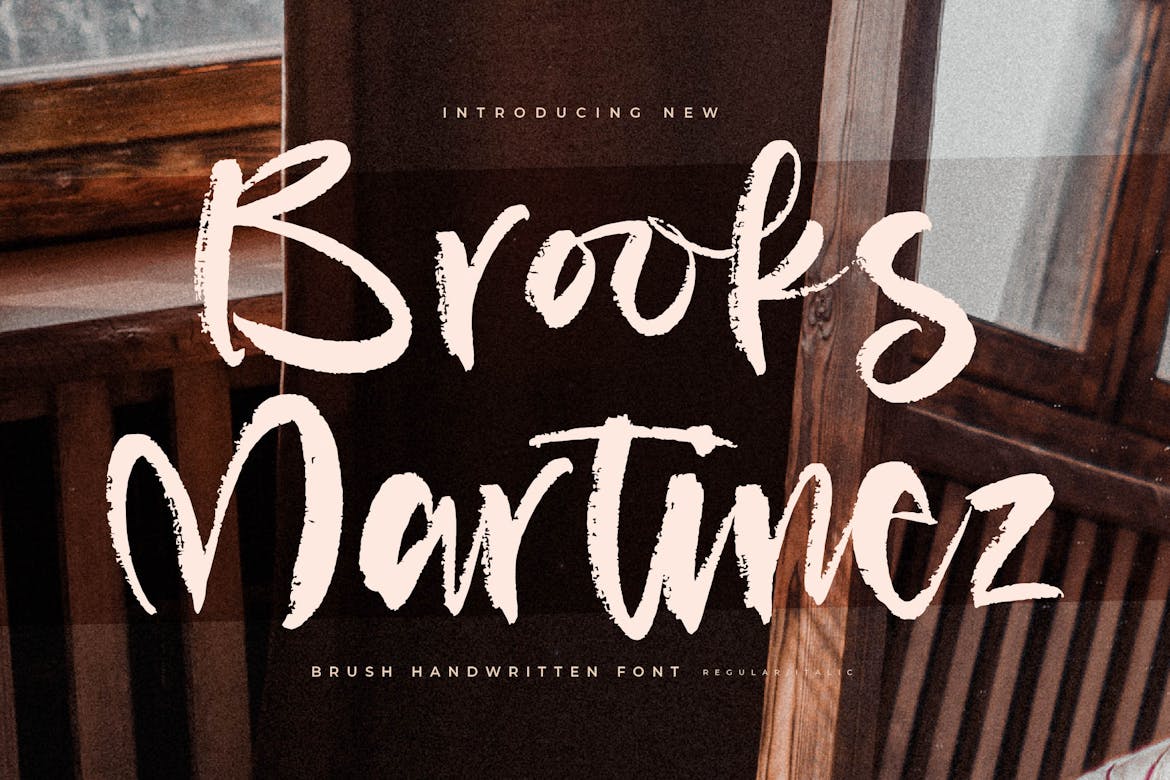
Brooks Martinez Brush Handwritten Font
Brooks Martinez Brush Handwritten Font is ideal for personal branding projects, signature logo design, intimate wedding invitations, handcrafted product packaging, authentic social media quotes, artisanal business cards, custom greeting cards, boutique fashion branding, and personalized typography applications.
What makes Brooks Martinez Brush Handwritten Font exciting is its intimate authenticity that captures the personal warmth and genuine character of natural handwriting with remarkable fidelity. This charming typeface features flowing brush strokes, natural letter connections, and spontaneous variations that create the feeling of receiving a handwritten note from a close friend. The font's personal touch and human imperfections make it perfect for brands that want to communicate intimacy, authenticity, and personal connection through typography that feels genuinely handcrafted and emotionally resonant.
Brooks Martinez Brush Handwritten Font family includes multiple personal variations: Regular, Bold, Light, Casual, Formal, and Signature versions. Each style maintains the distinctive handwritten brush aesthetic while offering different levels of formality and personal expression, providing designers with versatile tools for creating authentic personal typography systems and intimate communication applications.
The Brooks Martinez Brush Handwritten Font Free Download delivers premium handwritten typography that brings personal warmth to digital communications. This font excels in boutique businesses, personal services, wedding industries, and lifestyle brands where authentic human connection enhances customer relationships and emotional engagement. The natural brush variations eliminate the need for custom handwriting while maintaining genuine personal character.
Creative professionals choose Brooks Martinez Brush Handwritten Font for its ability to convey intimacy and personal touch through typography alone. The flowing handwritten strokes and organic rhythm create emotional connection that draws viewers into personal communication. Its authentic character works beautifully across diverse applications from intimate packaging to personal branding materials.
The comprehensive character set includes handwritten flourishes, personal symbols, and extensive multilingual support that enhances the intimate aesthetic. Brooks Martinez Brush Handwritten Font Free Download enables designers to experiment with personal applications and authentic handwritten combinations before purchasing.
Whether used for personal brand development or intimate customer communications, Brooks Martinez Brush Handwritten Font consistently delivers authentic handwritten typography that resonates with audiences seeking genuine personal connection, human warmth, and the timeless appeal of handcrafted communication.